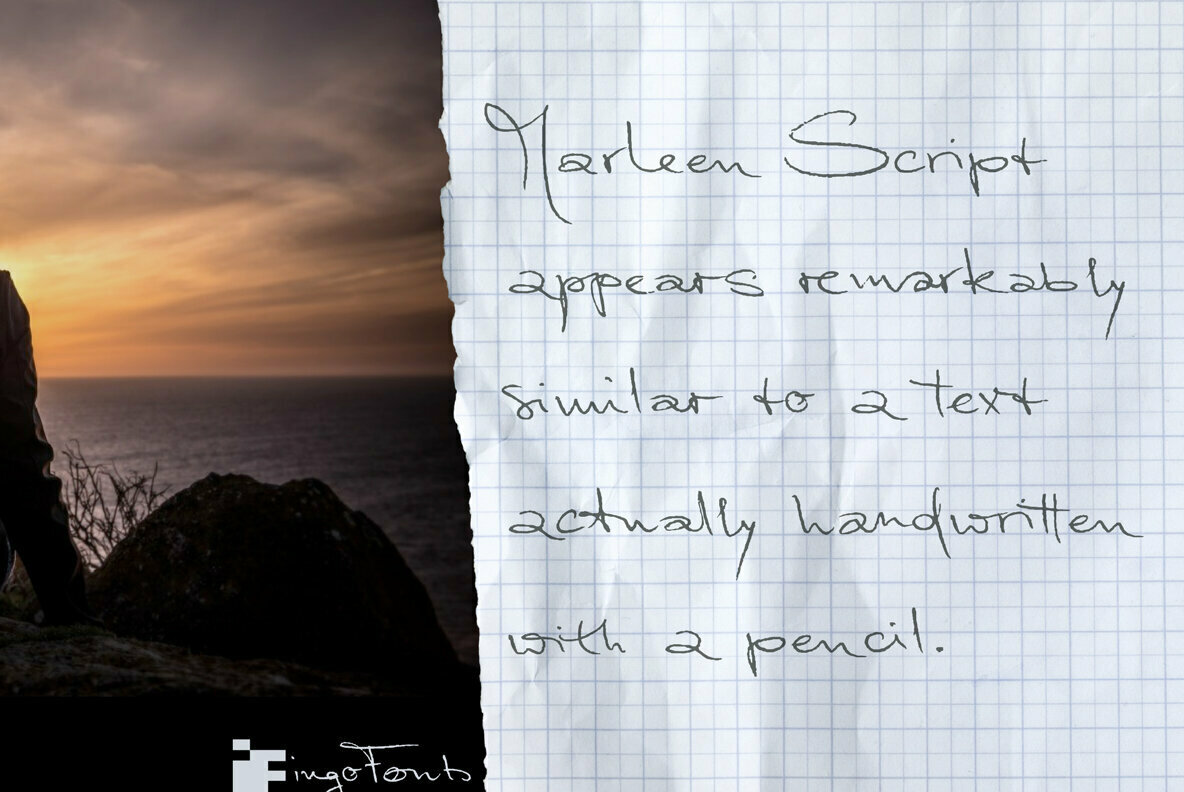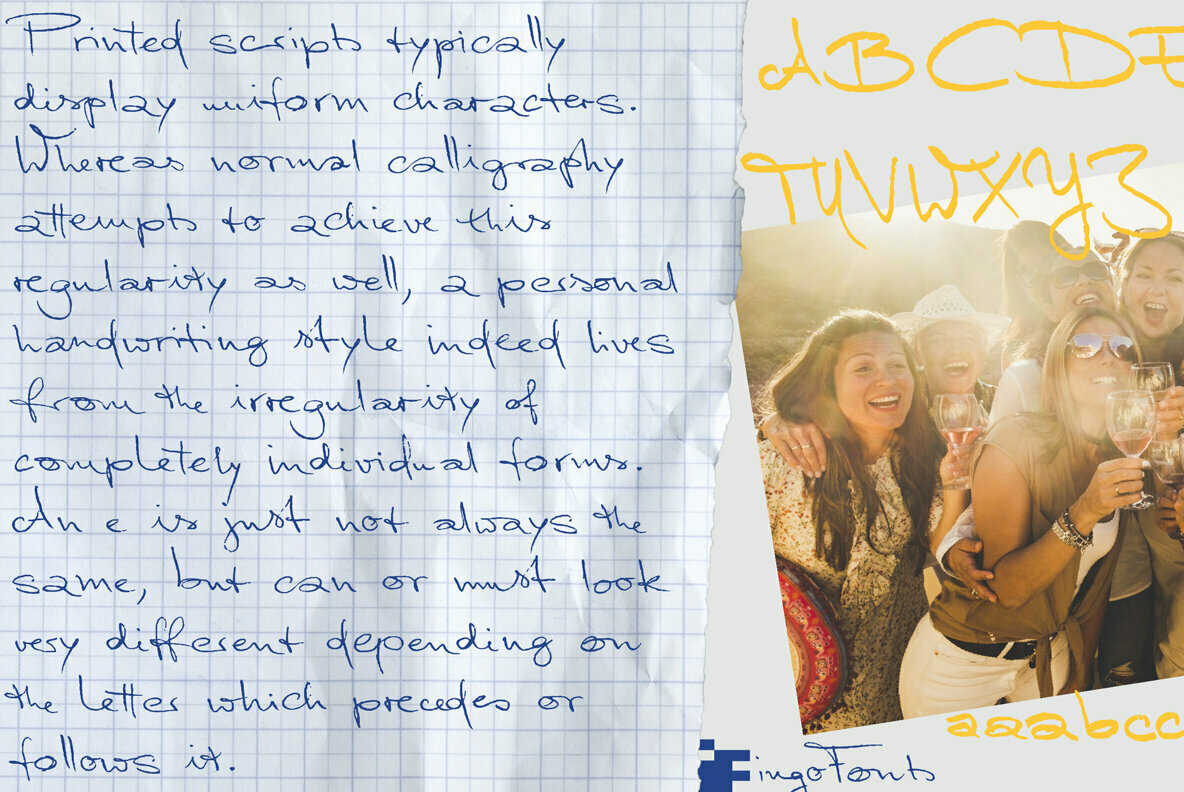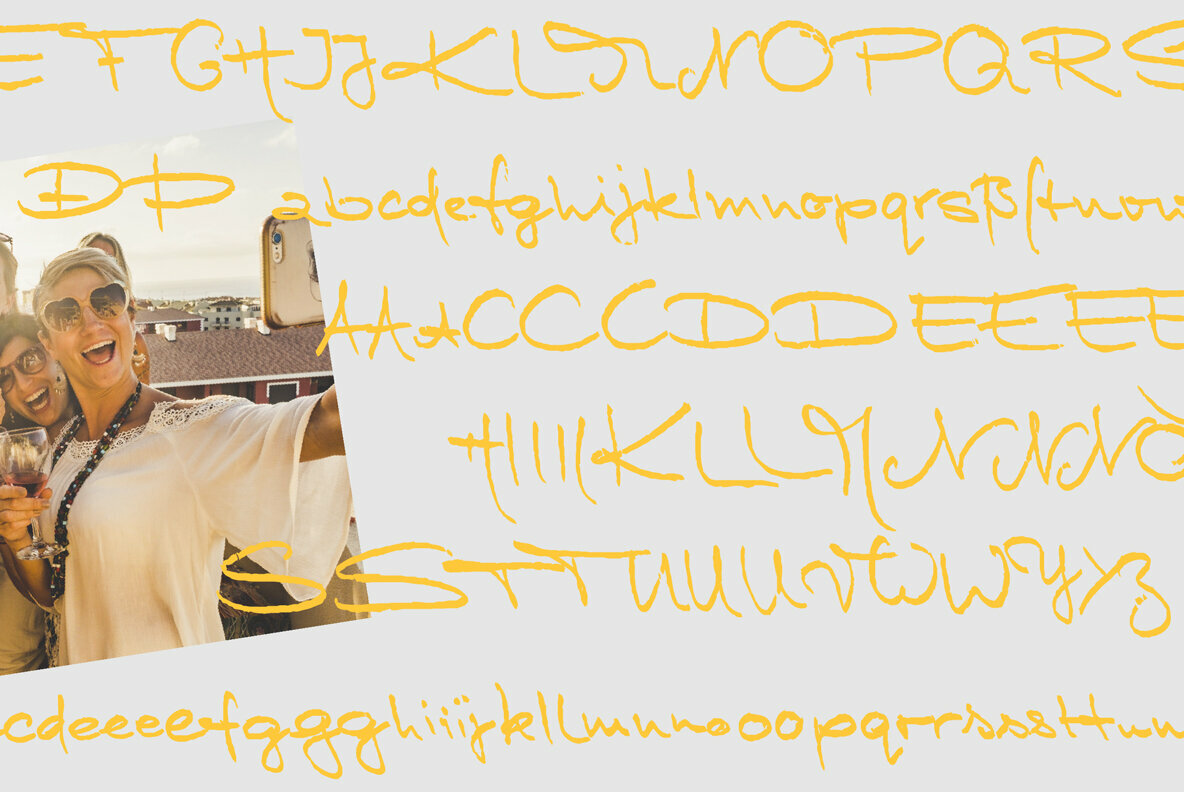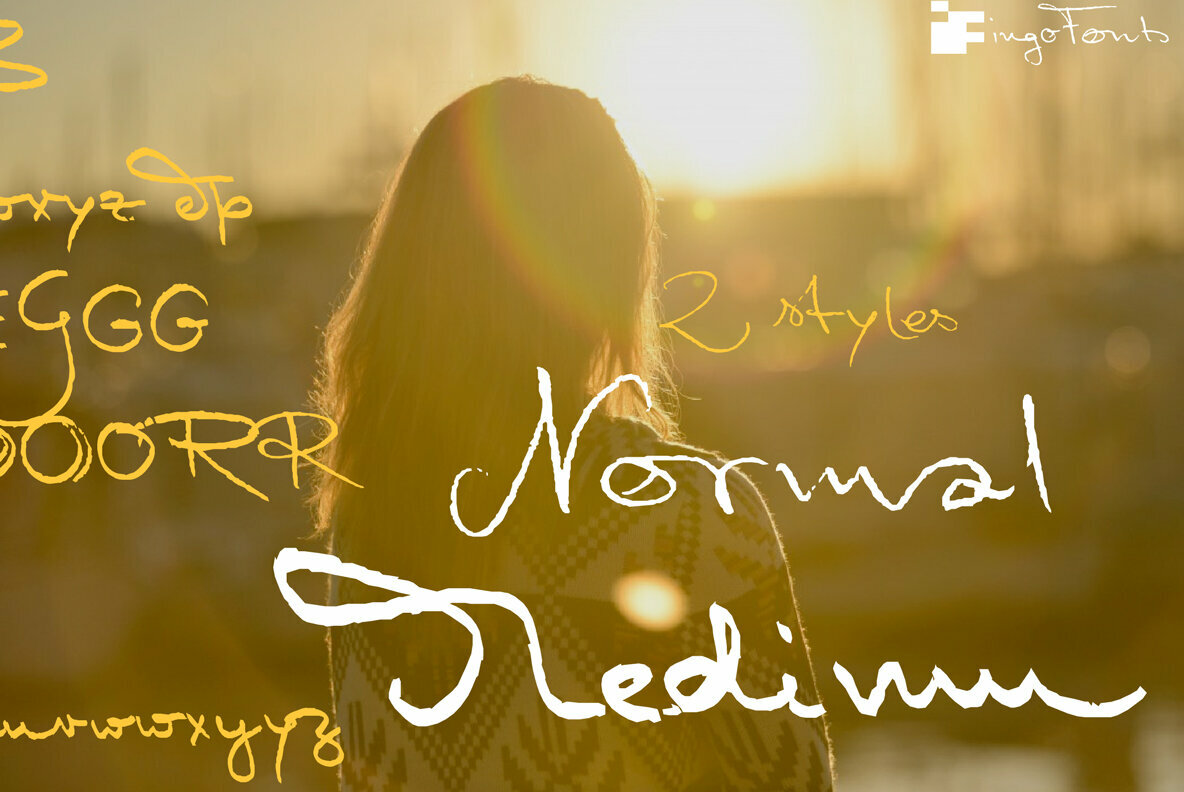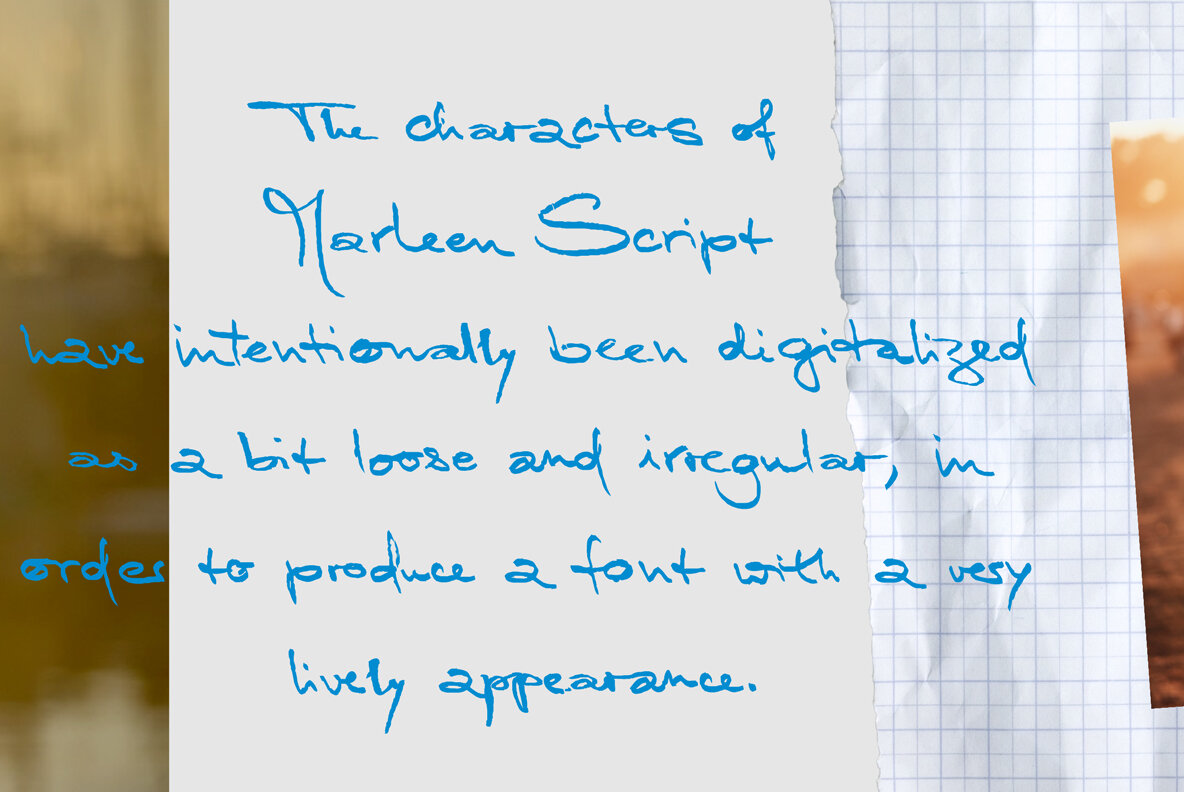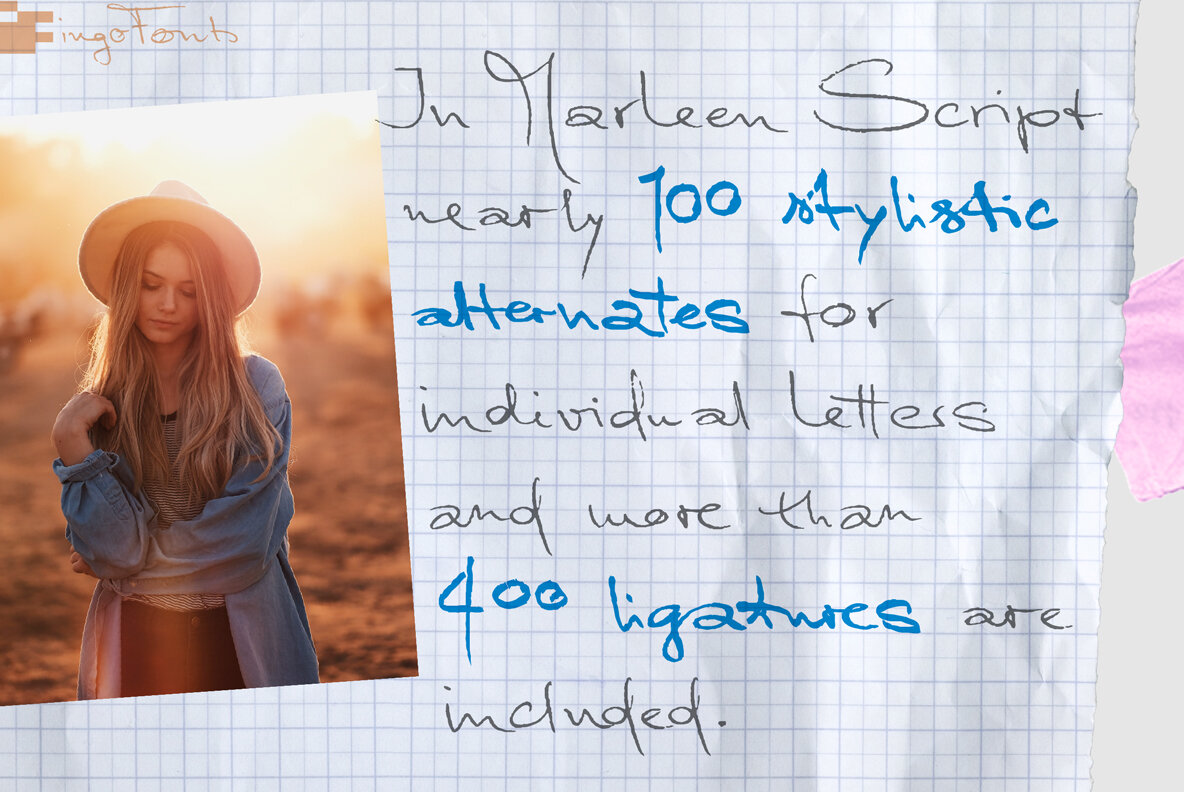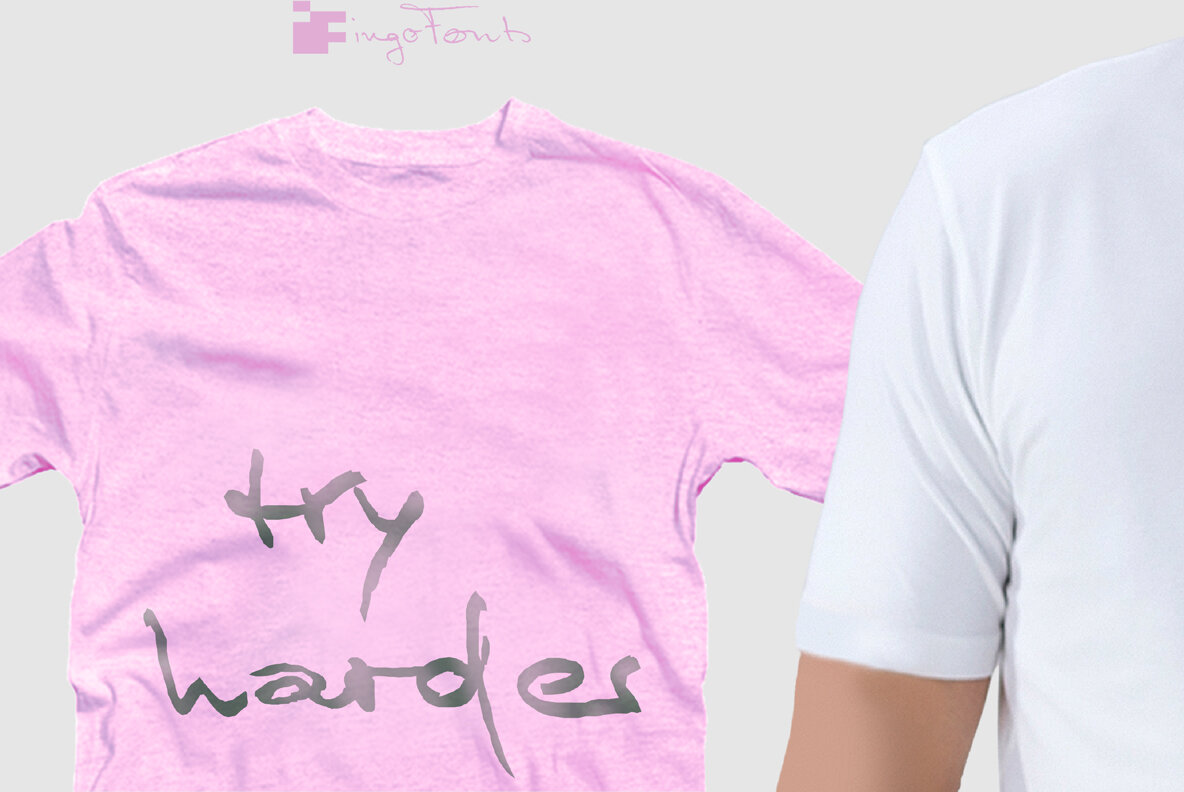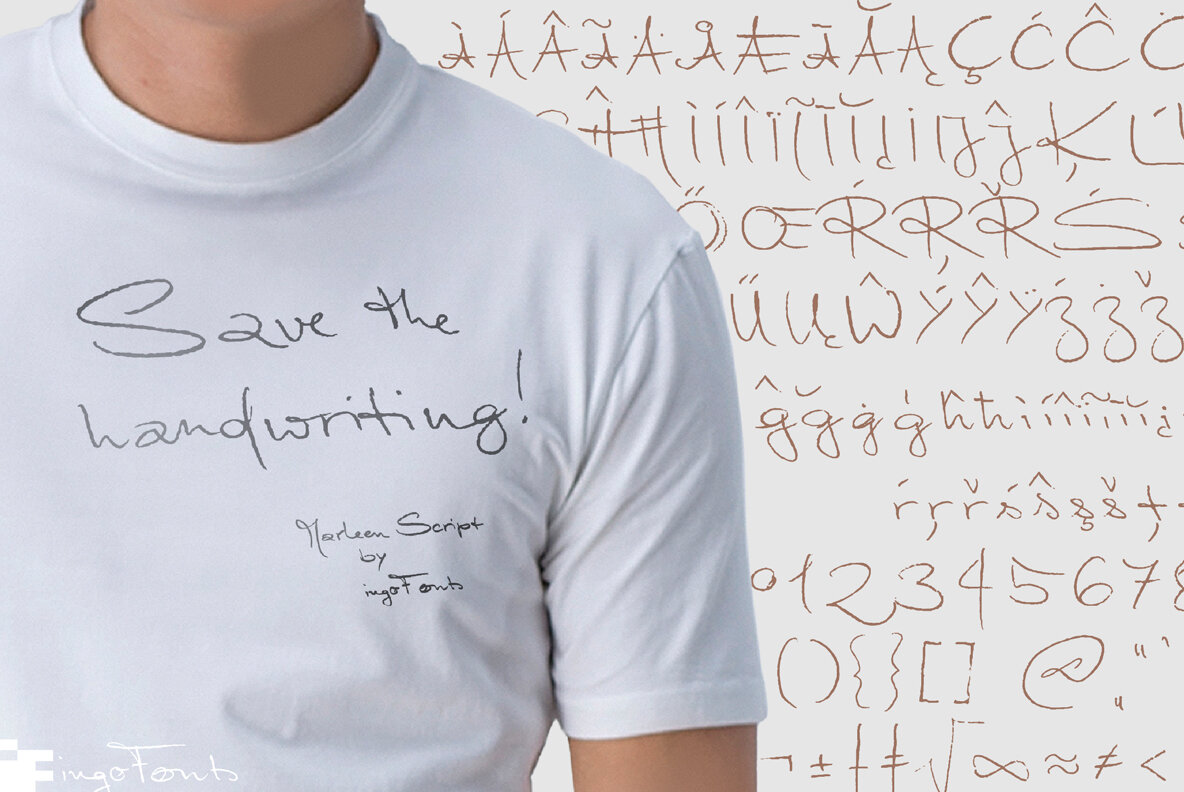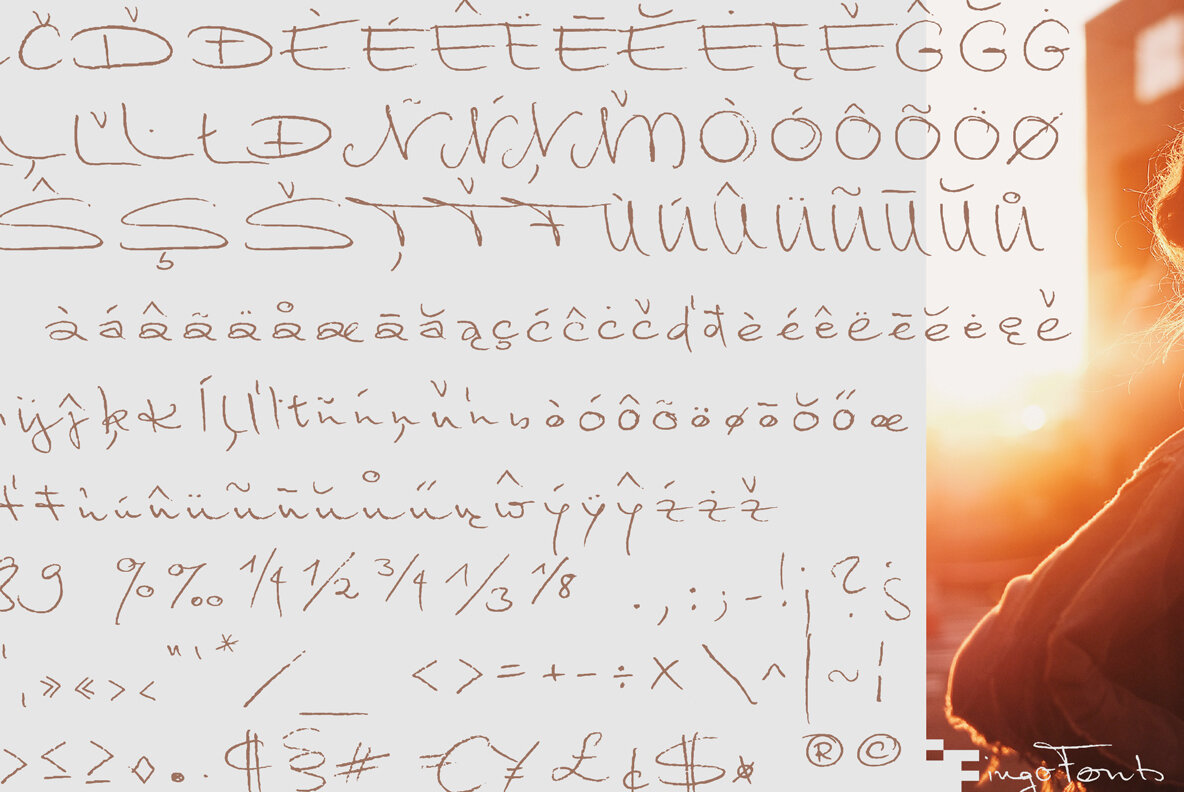
Marleen Script Font
An authentic style of feminine handwriting with a pencil.
Who still writes by hand? And who still writes nicely? What constitutes beautiful handwriting anyway?
Printed scripts typically display uniform characters. Whereas normal calligraphy attempts to achieve this regularity as well, a personal handwriting style indeed lives from the irregularity of completely individual forms. An e is just not always the same, but can or must look very different depending on the letter which precedes or follows it.
In Marleen Script nearly 100 stylistic alternates for individual letters and more than 400 ligatures are included.
With these options it is finally possible to convincingly simulate the effect of true handwriting with a typeface.
So, the form of the single character seldom repeats itself since it is mostly replaced with a ligature; and, with each combination of characters the result is a slightly different form of the individual character. Type set in Marleen Script appears remarkably similar to a text actually handwritten with a pencil.
The characters of Marleen Script have intentionally been digitalized as a bit loose and irregular. Stylistic alternates are available for many of the letters, some even with various alternates to choose from, in order to produce a font with a very lively appearance.
The original for Marleen Script was created by Marleen Baumann from Augsburg in the spring of 2010 using a sharp pencil on rough handmade paper. In spite of irregularities, this font is aesthetical. Although most people rarely put forward an effort with their handwriting, in Marleen Script one can see the desire for an attractive form.
This typeface also fills a completely different kind of gap: finally, a ”typically female“ font.
Spirited capital letters, the tendency toward loops and the obvious inclination toward the left are all common characteristics of ”female scripts.“